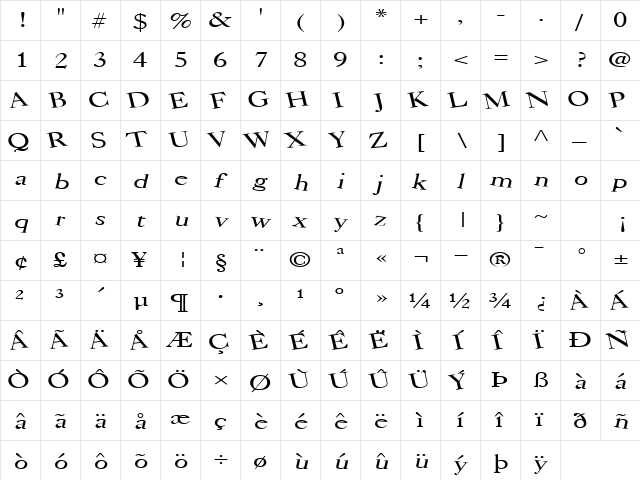
BearMarketGear7 Regular Font Preview
BearMarketGear7 Regular
Design Context for BearMarketGear7 Typeface
BearMarketGear7 is a composed and adaptable typeface that performs quietly and consistently across a wide range of design contexts.